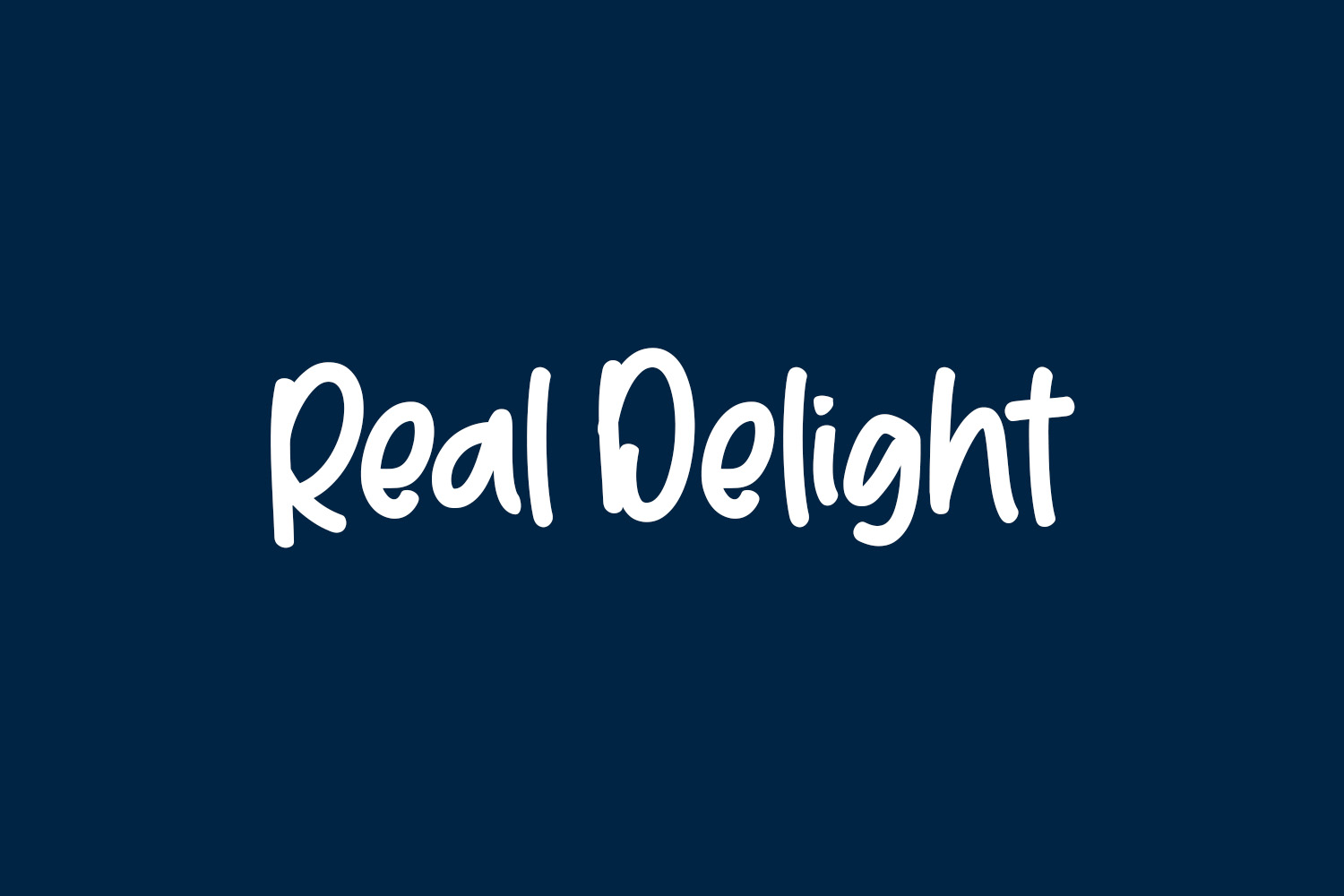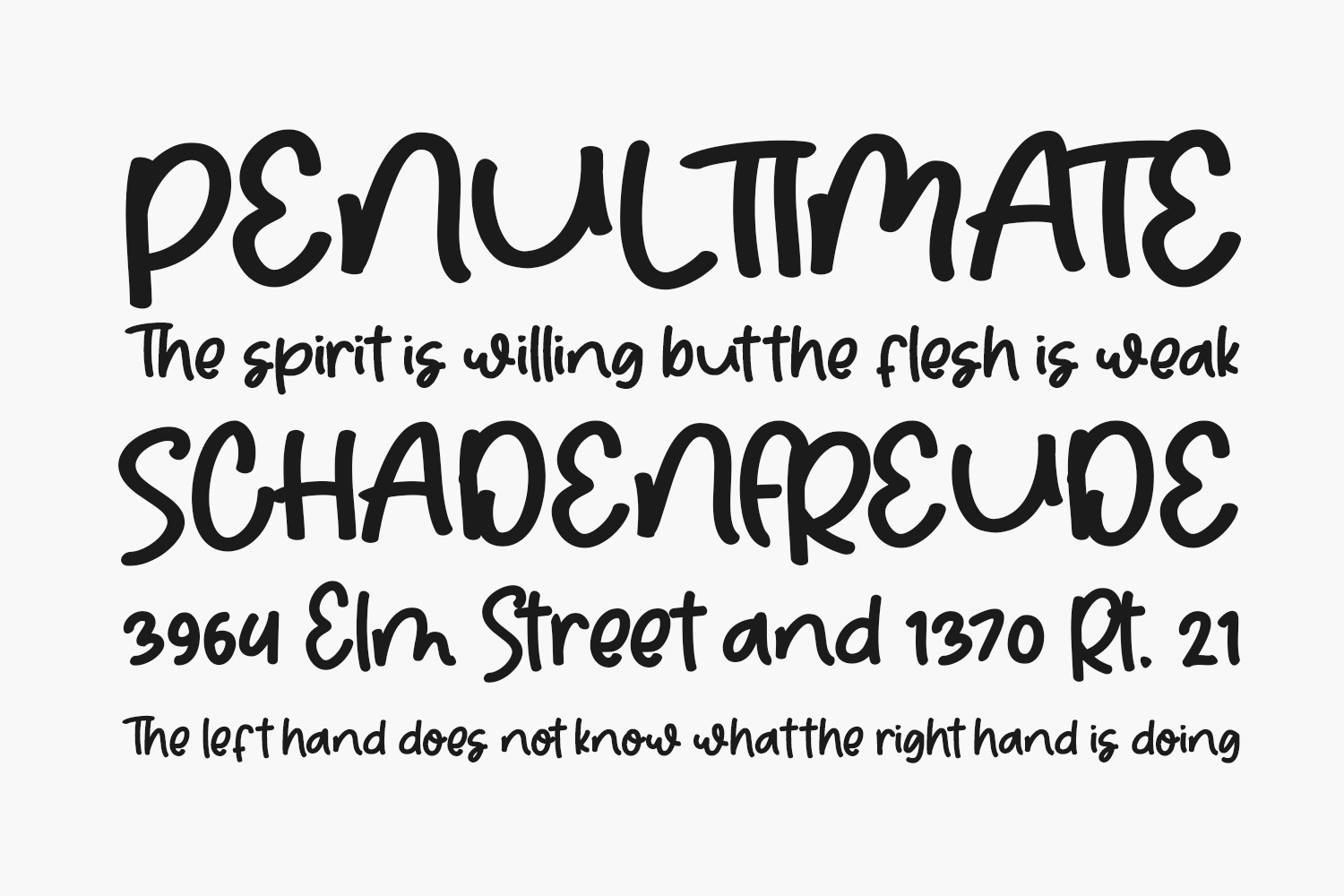
Real Delight Free Font is a cool and natural handwritten font. It can be used for various designs, such as logos, labels, branding and pretty much anything that requires a relaxed touch. Real Delight Free Font is free for personal use only. Please purchase the full version for commercial use.